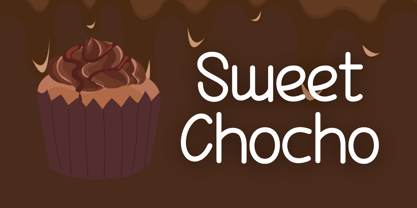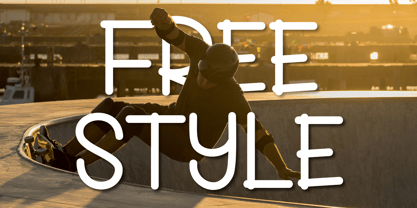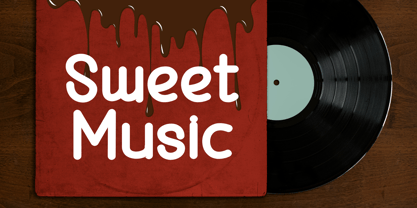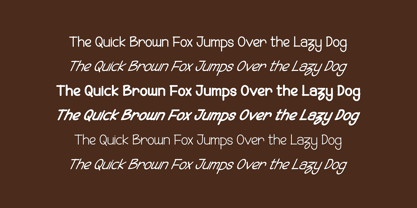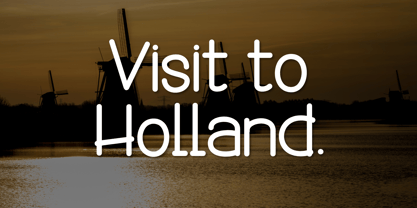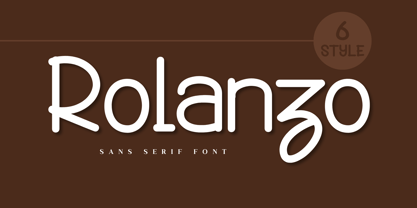
Rolanzo
by Letterafandi Studio
The Rolanzo Font Family was designed by Ahmad Afandi and published by Letterafandi Studio. Rolanzo contains 6 styles and family package options. More about this family
Discover Rolanzo - a sleek, meticulously-crafted sans-serif typeface with 6 distinct styles. Each style offers a unique blend of sophistication and versatility, effortlessly enhancing your text with a clean and modern aesthetic. Rolanzo's range of styles makes it adaptable to a variety of design projects, truly setting it apart in the realm of sans-serif fonts. Explore the transformative quality of Rolanzo, and let it amplify your design narrative with its timeless elegance.
Designers: Ahmad Afandi
Foundry: Letterafandi Studio